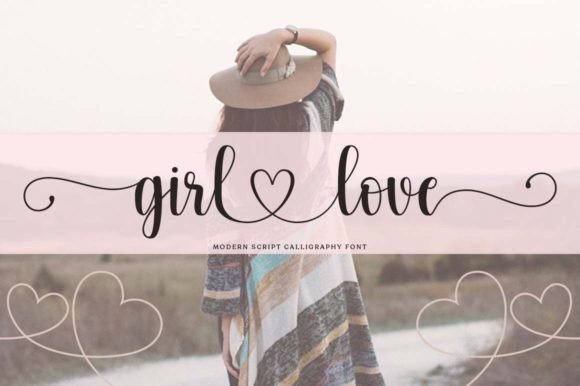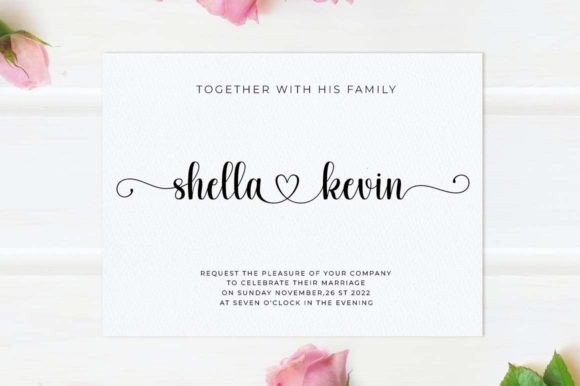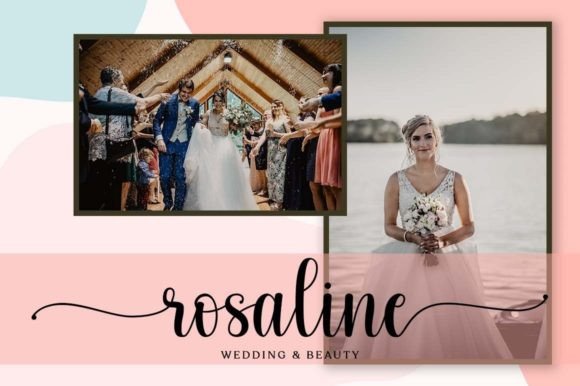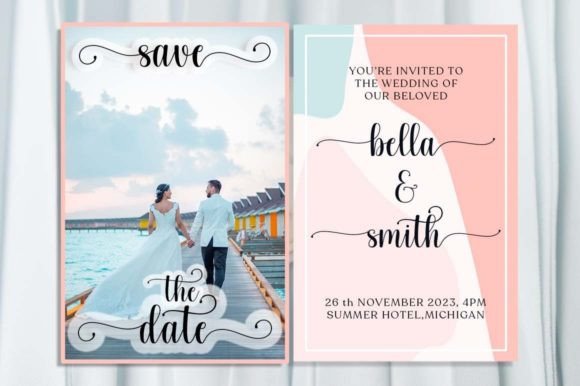
Girl Love Font
About the Girl Love Font
Welcome to the world of Girl Love Font, a typeface that will inspire your next great project. Girl Love is a sweet calligraphy script that maintains its elegance throughout all the characters.
Girl Love is the perfect typeface for all kinds of your projects such as advertising, branding, graphic design, quotes, wedding designs, logos for online or offline businesses, photography, and more. Make your business more beautiful!
Girl Love’s delicate yet distinct forms shine in headlines, short text blocks, and logos where its elegant flourishes can be fully appreciated. It’s ideal for branding projects aimed at a feminine or romantic audience, wedding invitations, and packaging for luxury or beauty products. However, its calligraphic nature makes it less suitable for body text or UI elements requiring high readability. Avoid using it for large amounts of text.
Pair Girl Love with a clean sans-serif like Montserrat for a modern contrast, or a classic serif such as Garamond for a more timeless feel. For a playful touch, consider pairing it with a geometric sans-serif like Futura. These pairings provide strong visual balance and enhance Girl Love’s inherent charm without overwhelming the design.
The font projects a sophisticated and romantic personality; its overall mood is graceful and feminine, yet approachable. It’s best used sparingly to create an elegant and memorable impact.
Girl Love Font Usage Examples
Girl Love Font Example